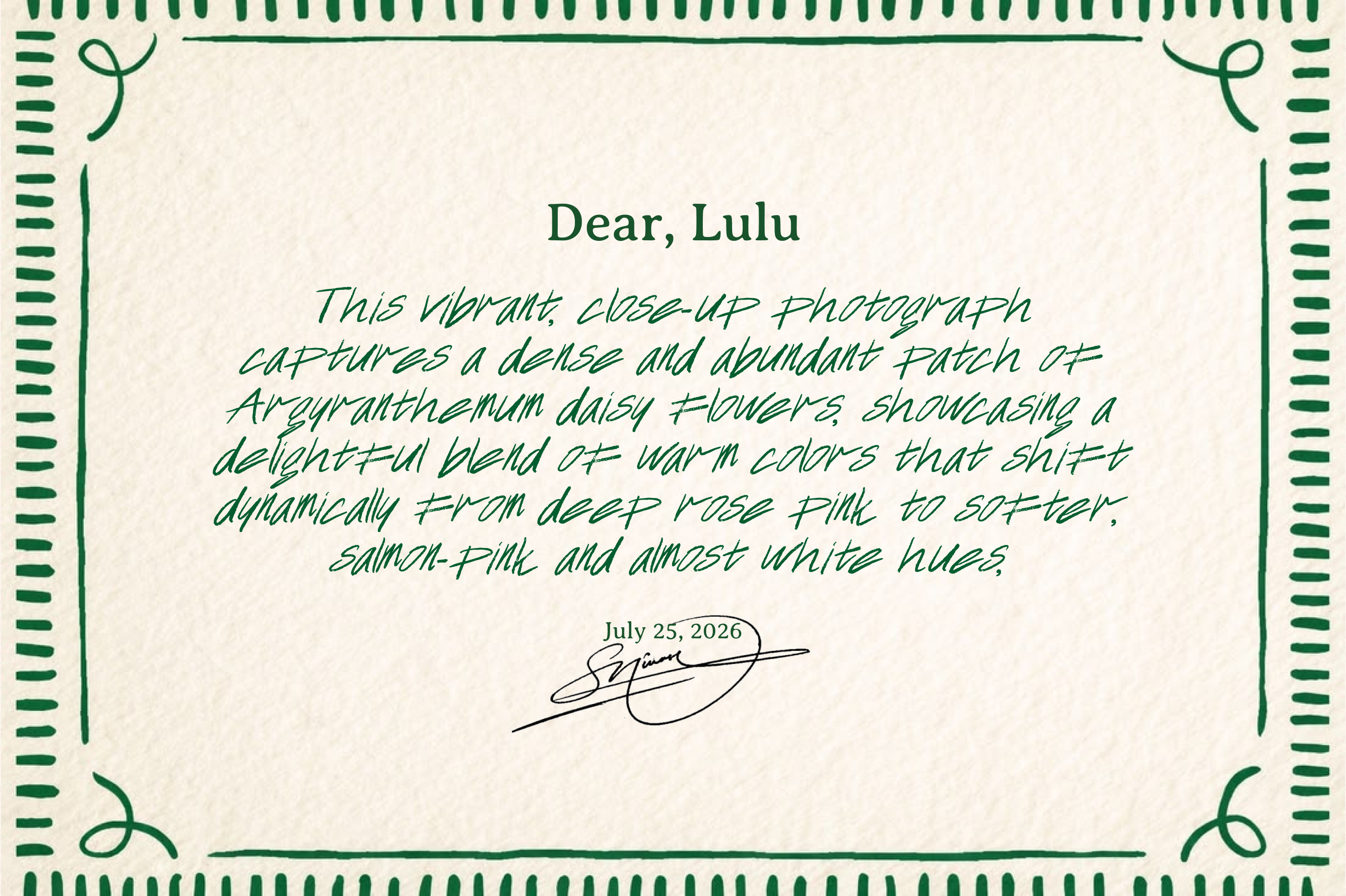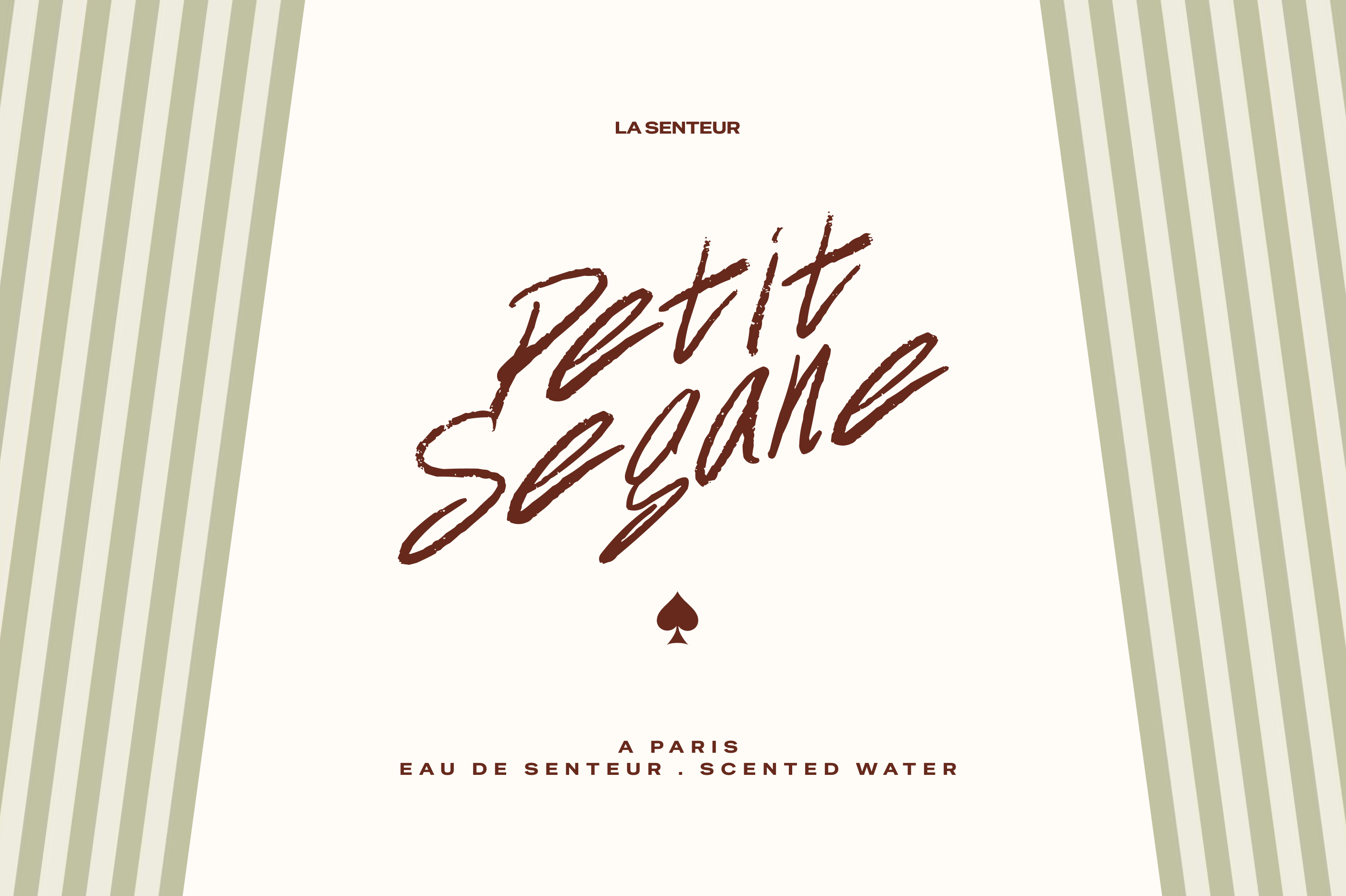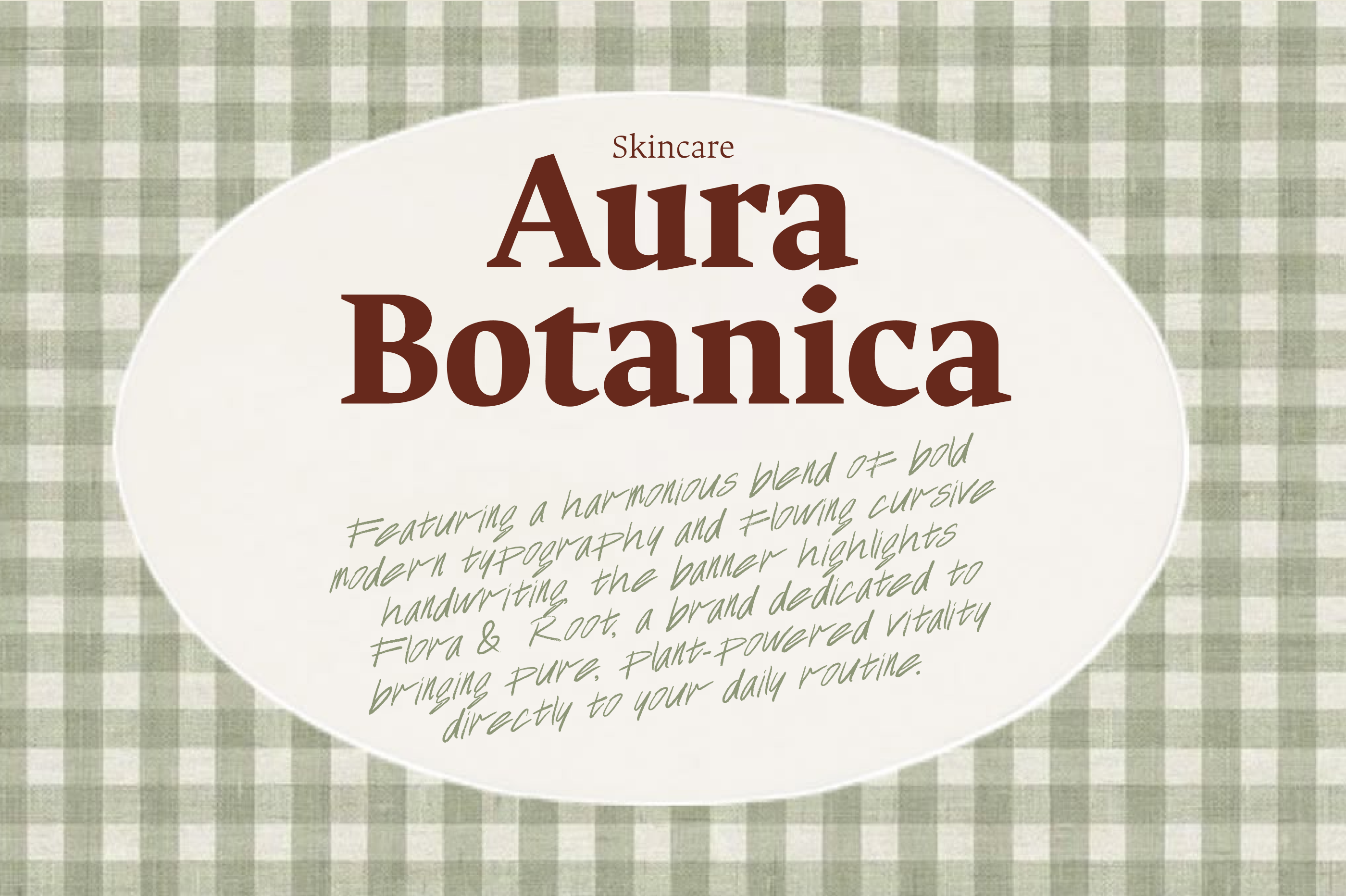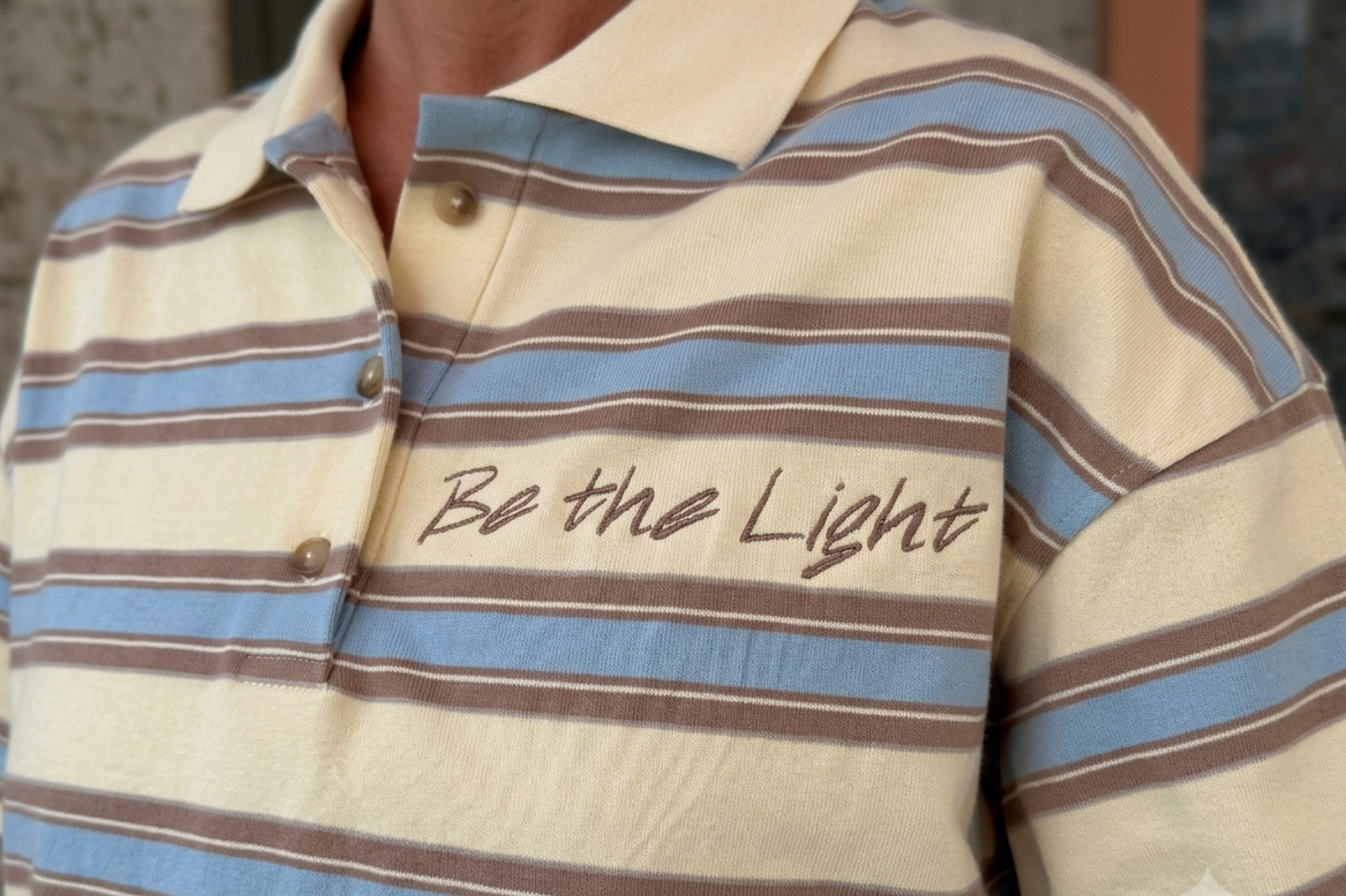
FT Husten – Authentic Handwritten Script Font
Firstype Studio
FT Husten – Authentic Handwritten Script Font
FT Husten created by Firstype Studio is a handcrafted script font meticulously designed to mimic authentic, natural handwriting. With its textured strokes, organic flow, and raw pen-like feel, this typeface brings an intimate and personal human touch to your creative projects.
FT Husten captures the spontaneous charm of everyday writing while maintaining high readability. Whether you are designing vintage-inspired stationery, romantic wedding invitations, boutique branding, or cozy editorial headers, this font infuses your work with a warm, genuine character that clean digital fonts often lack.
✨ Key Features
Authentic Handwritten Aesthetic: Crafted precisely to mimic real, natural pen strokes and human handwriting.
Textured Flow: Features subtle textures and organic lines that give your text a tactile, realistic finish.
Versatile Application: Perfectly suited for both casual personal projects and professional commercial branding.
Professional Grade: Precision-engineered letterforms ensuring smooth vector output and seamless integration.
Perfect For
Stationery & Weddings: Romantic invitations, greeting cards, and personal notes.
Branding & Logo Design: Unique boutique identities, artisan packaging, and photographer watermarks.
Editorial & Social Media: Quotes, lifestyle blog headers, and charming aesthetic graphics.
Apparel & Merch: Custom merchandise, tote bags, and casual apparel designs.
Bring a genuine human touch to your designs with FT Husten.